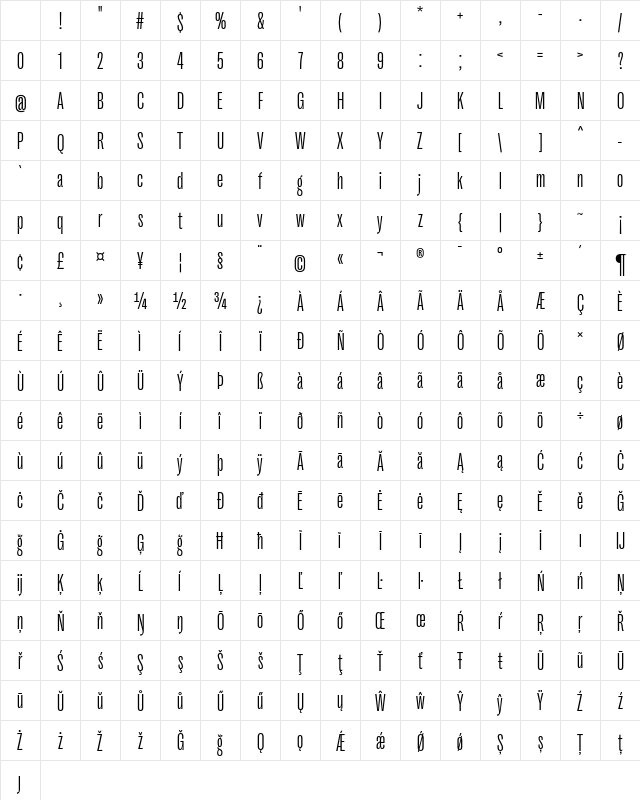
Complete Right Grotesk Tight Light Regular glyph index. Displaying only characters natively supported by Right Grotesk Tight Light Regular font.
Right Grotesk Tight Light takes a clean, functional approach - its unadorned letterforms prioritise legibility and work reliably across screen and print environments. Its slender proportions lend an understated elegance to any composition.
Font Pairing: Pair Right Grotesk Tight Light with a medium or bold serif for headlines - the weight contrast creates an elegant, high-end feel.
Pro Tip: Use Right Grotesk Tight Light with generous tracking and line-height for the most luxurious effect - light sans-serifs reward spacious, considered layouts.